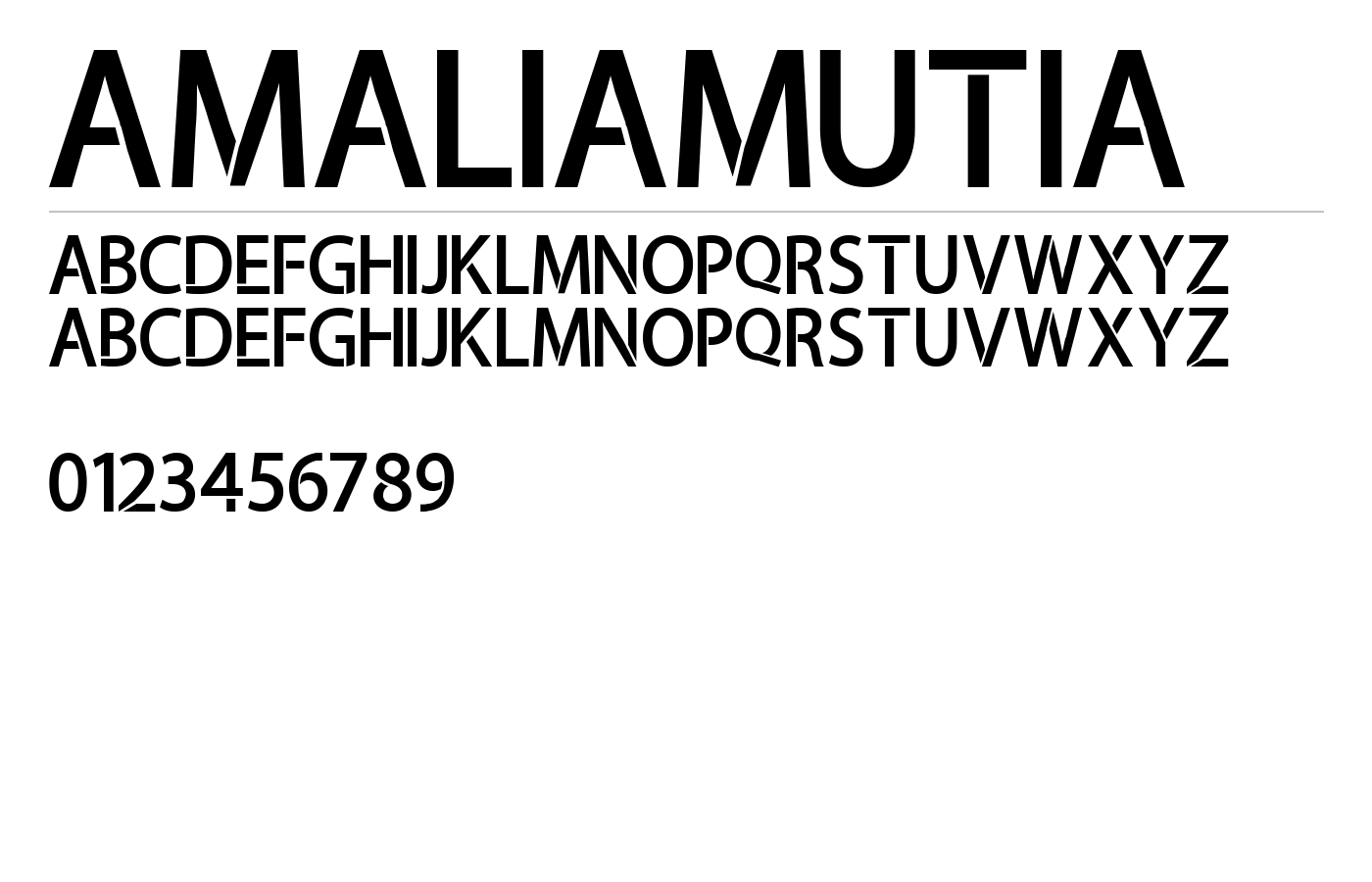
Amaliamutia is a sleek, modern sans serif font with a high x-height and medium stroke contrast that gives it a sharp yet balanced appearance. Its clean, geometric letterforms, combined with subtle stylistic details like angled cuts and distinctive letter shapes, create a contemporary and professional look ideal for branding, headlines, and editorial design. This versatile font works well in digital and print formats, adding a touch of sophistication and clarity to any project.
amaliamutia Font
About amaliamutia Font